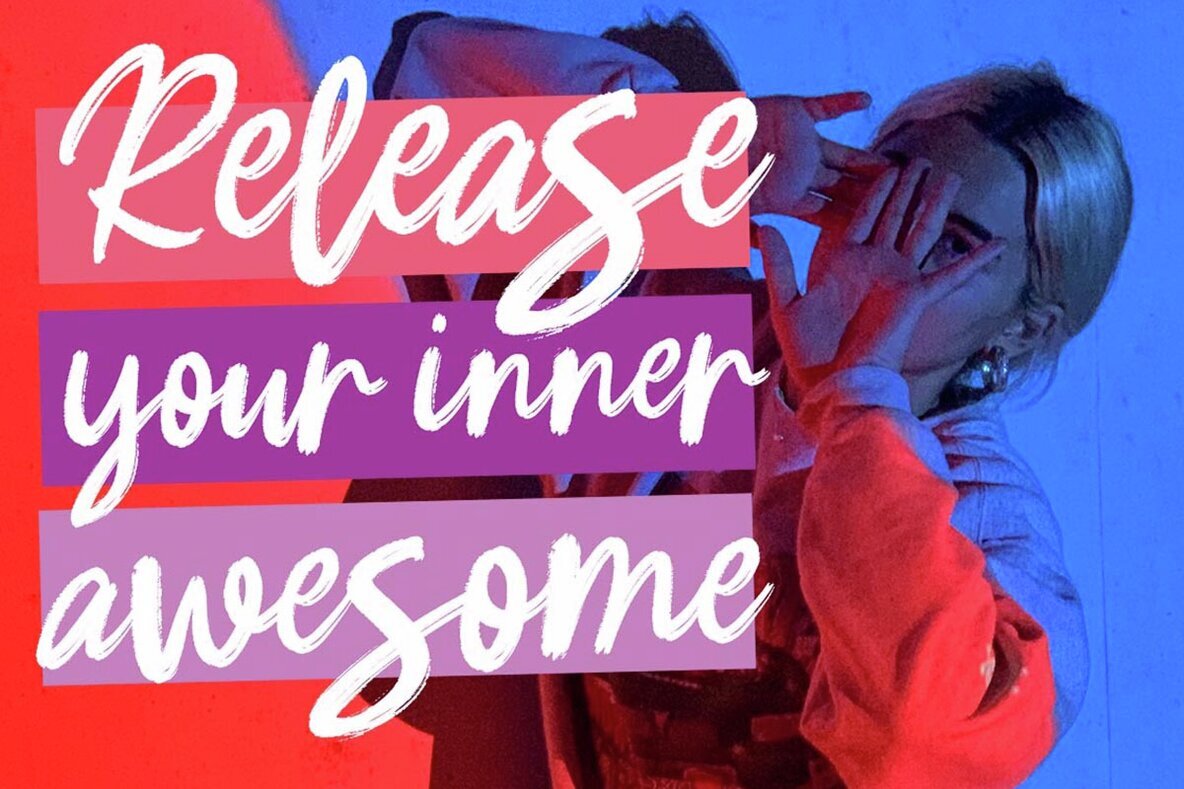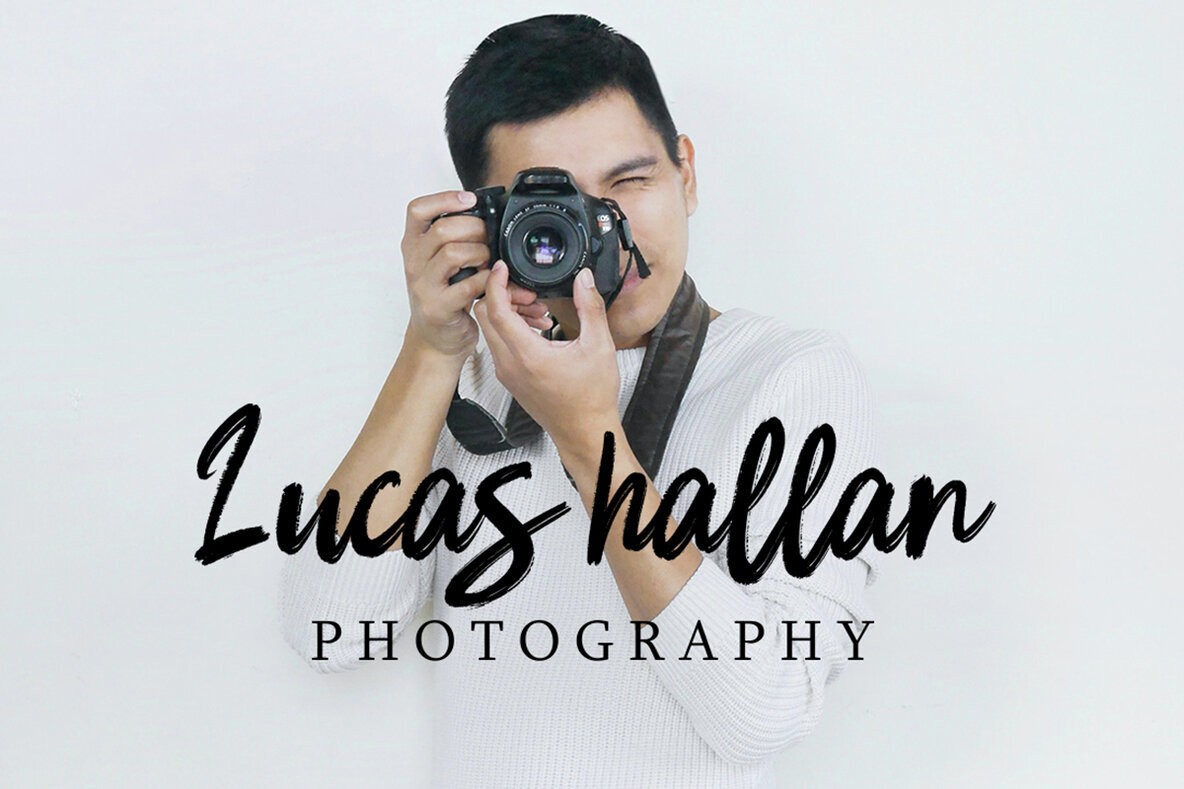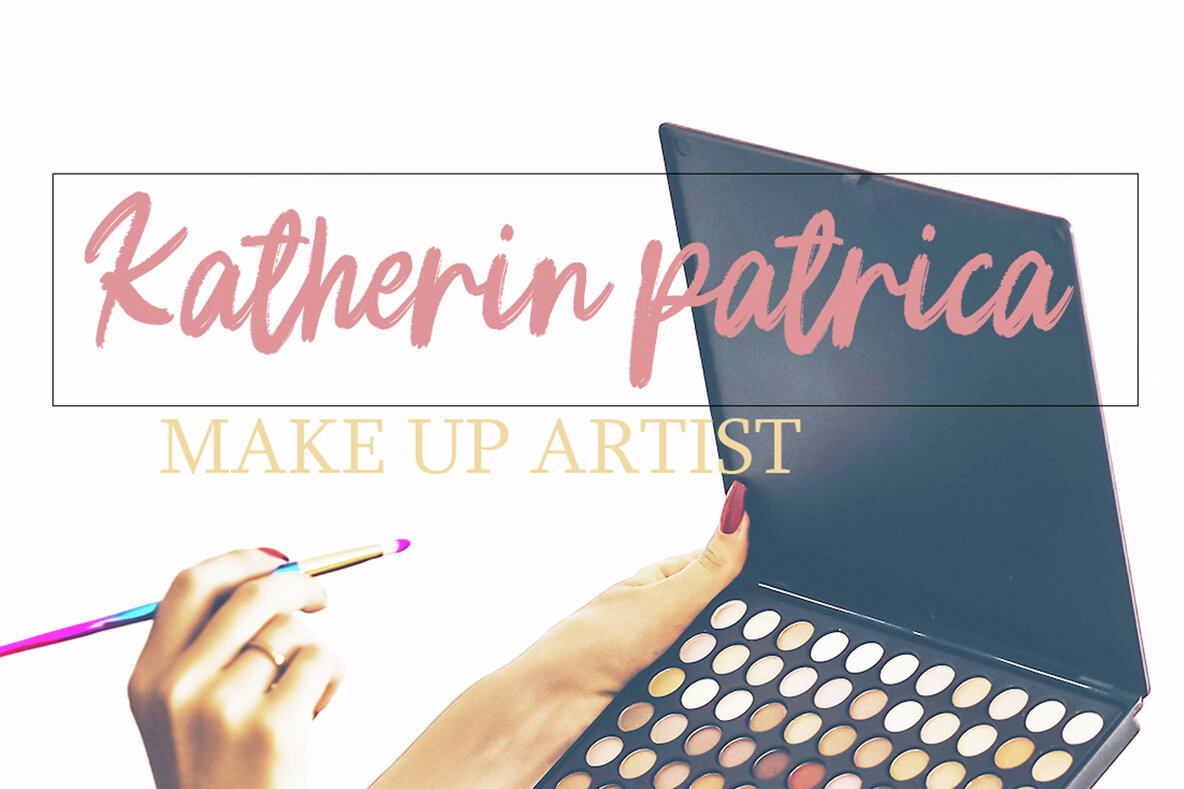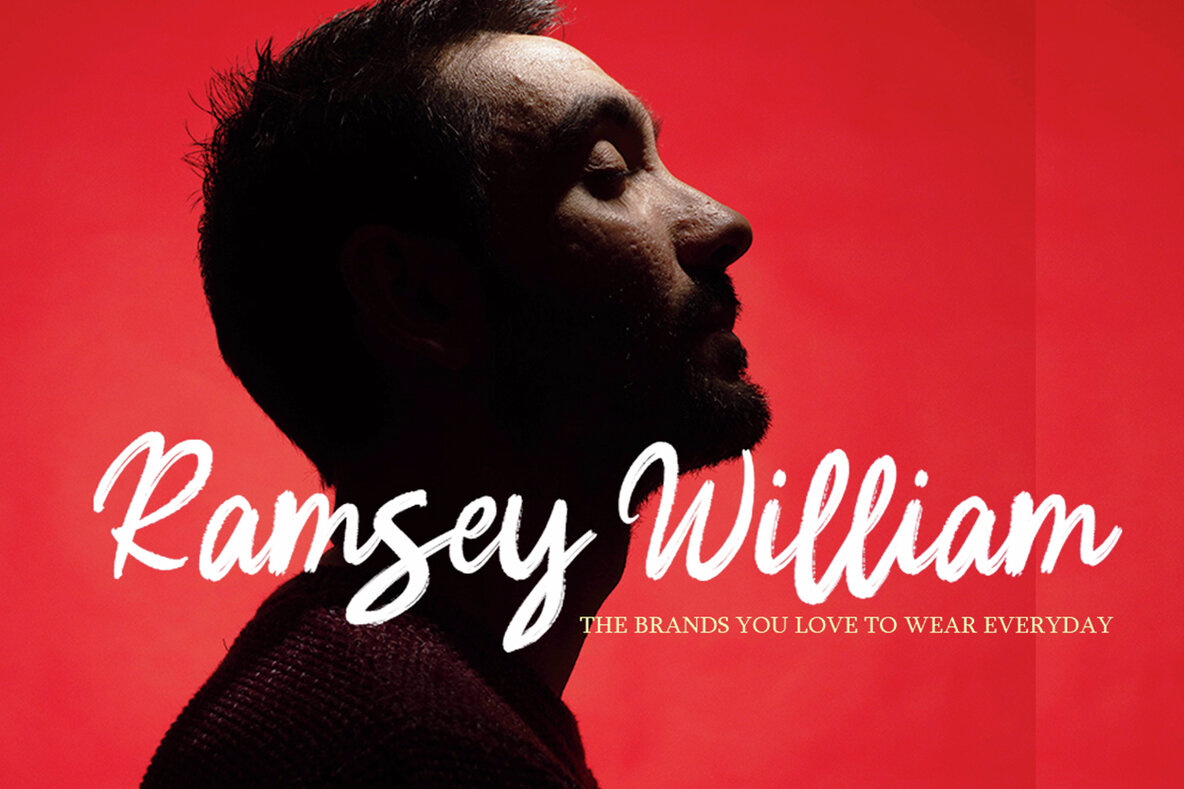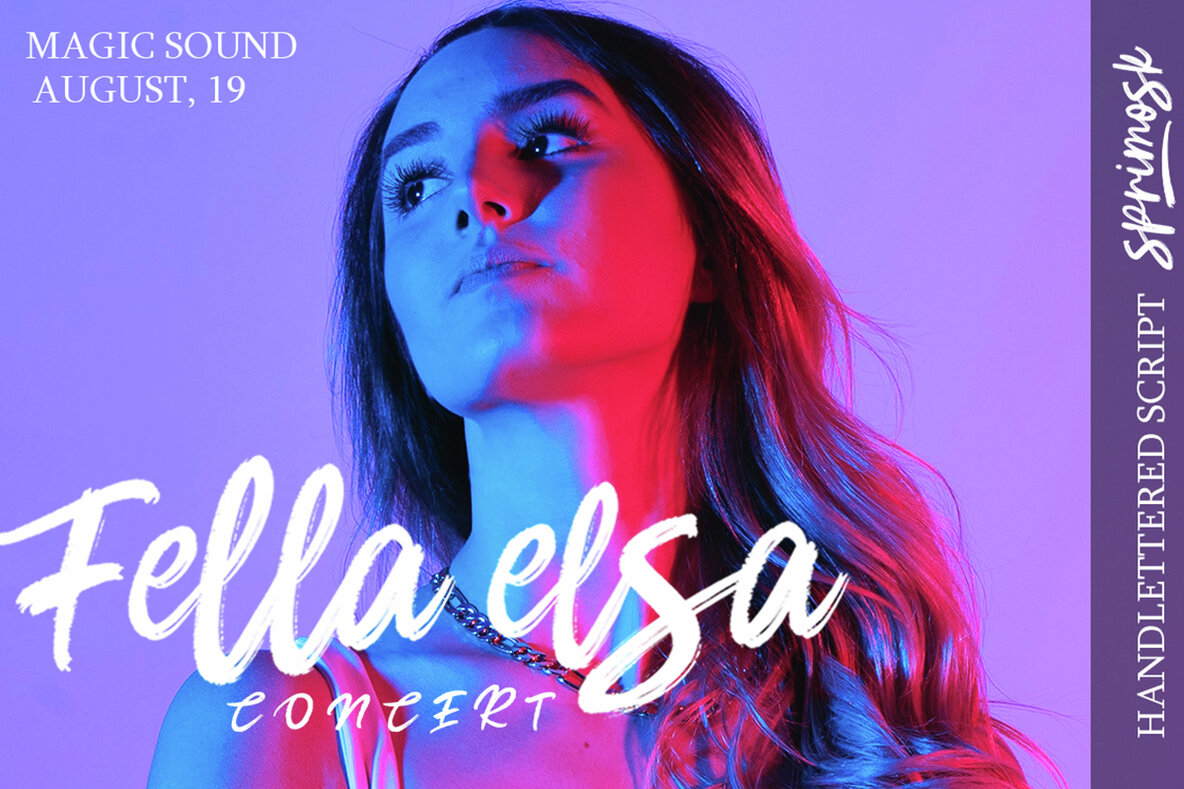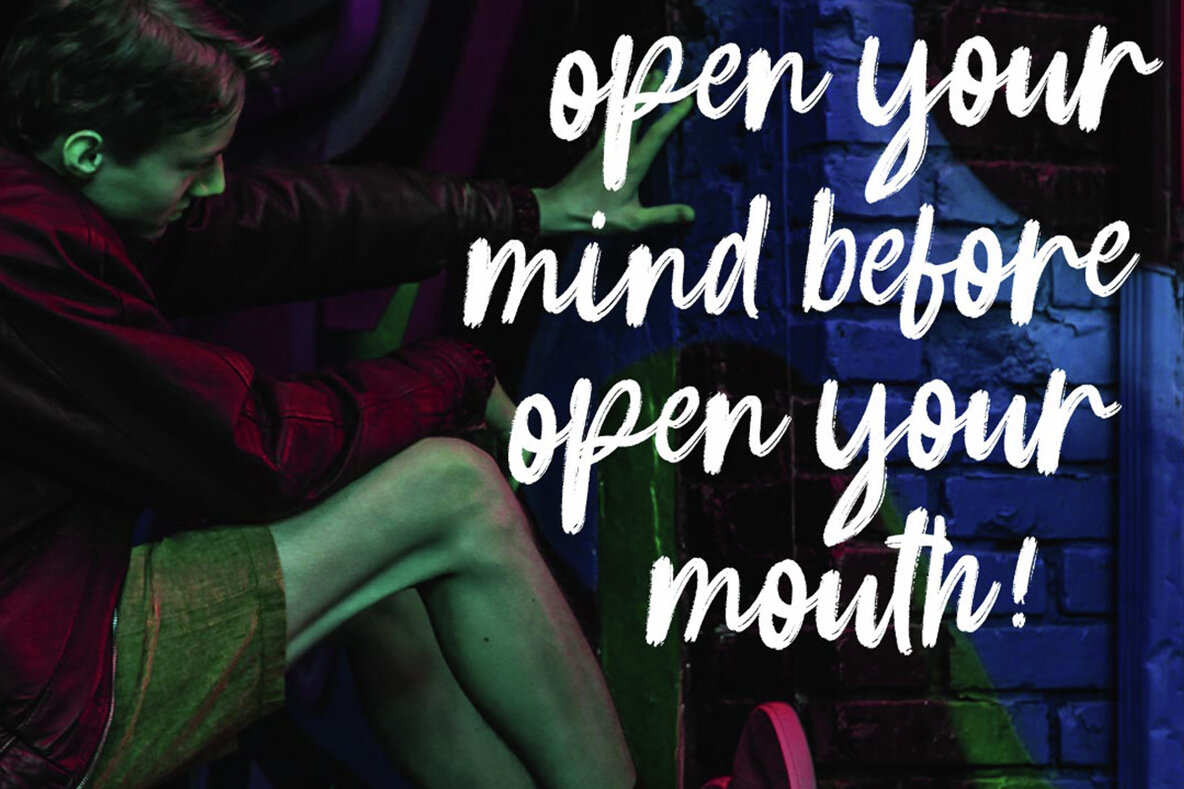
Sprimosk Font
Sprimosk is a dynamic hand brush font crafted with brushes and ink, perfect for adding a personal touch to any project. Its natural and artistic strokes are well-suited for designs that require a thick watercolor effect or a handwritten aesthetic. This versatile typeface is ideal for a range of applications, including blog titles, posters, wedding elements, and apparel such as t-shirts and clothing. It can also enhance the visual appeal of book covers, business cards, greeting cards, and various branding and merchandise projects.
This comprehensive font includes a full set of uppercase and lowercase characters, along with alternatives and fasteners, that provide flexibility in design. It also features a robust selection of punctuation marks, numbers, and multilingual support to cater to diverse creative needs. Additionally, Sprimosk includes underlines that harmonize beautifully with the main font, offering even more opportunities for unique typographic creations. Explore its potential through the inspiring preview and incorporate it into your next creative endeavor.